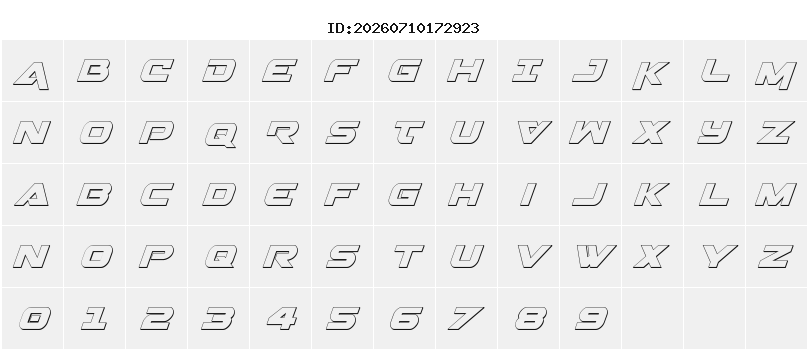
Gemina 3D Italic Preview
• Font Name: Gemina 3D Italic
• Full Font Name: Gemina 3D Italic
About Gemina 3D Italic.ttf
Gemina 3D Italic.ttf is a modern, elegant sans-serif font designed for ultimate readability and visual harmony. Perfect for branding, headlines, web design, and print materials.